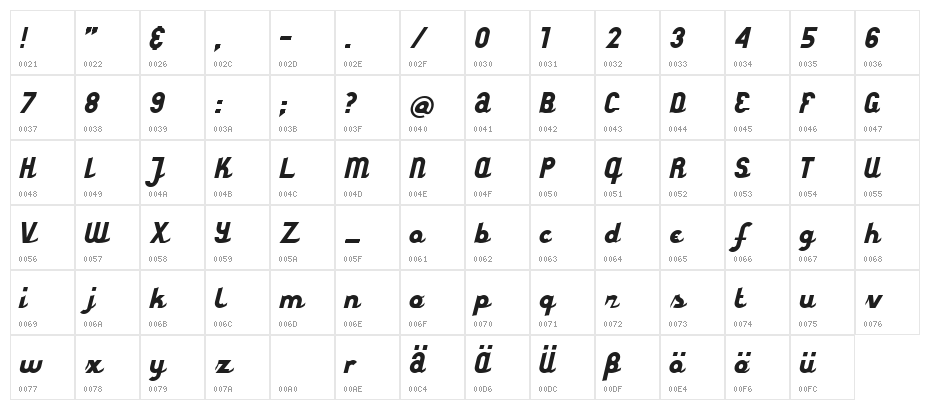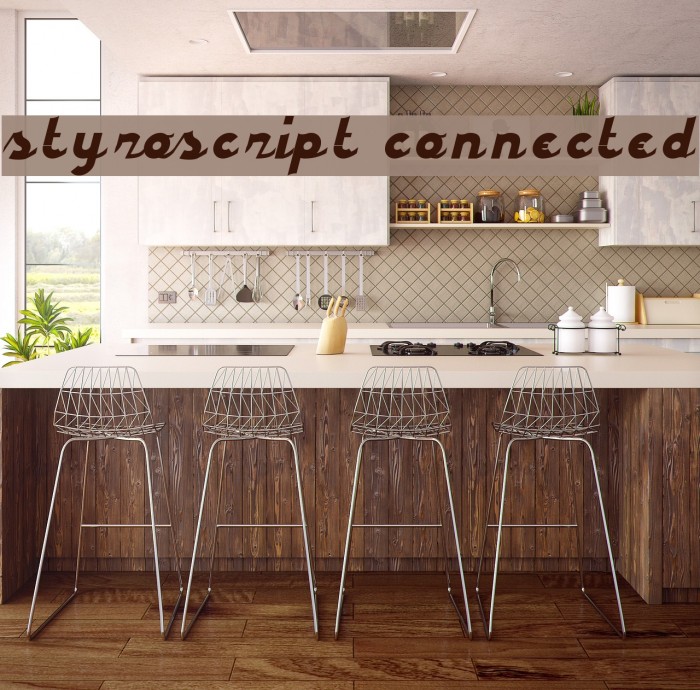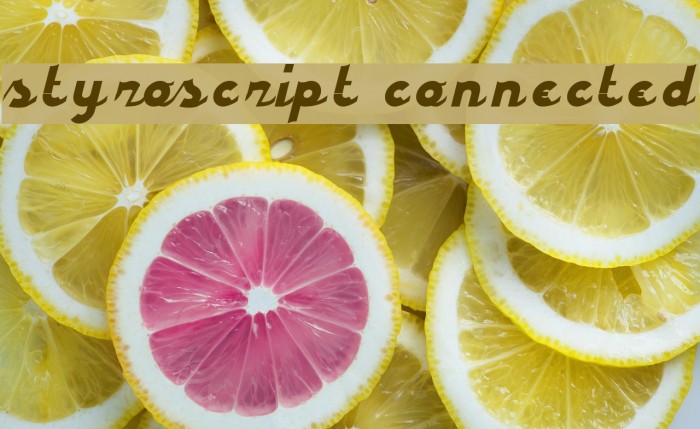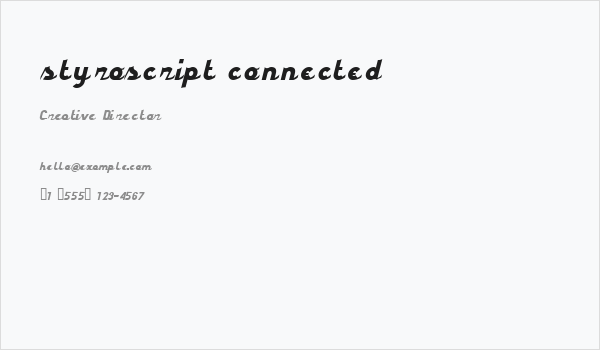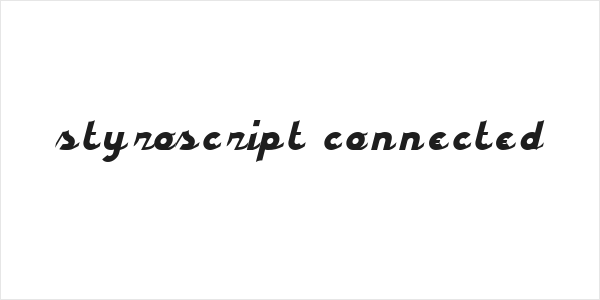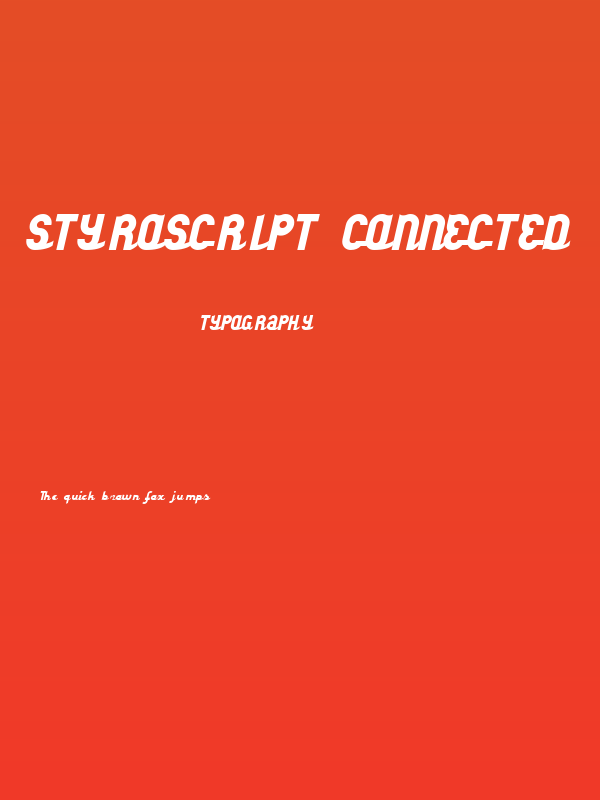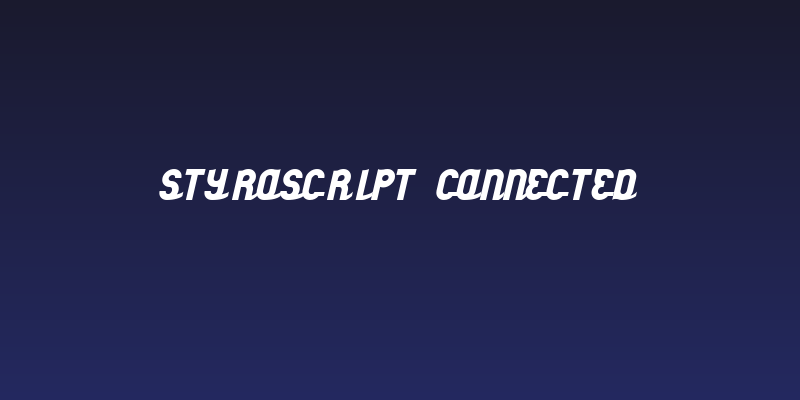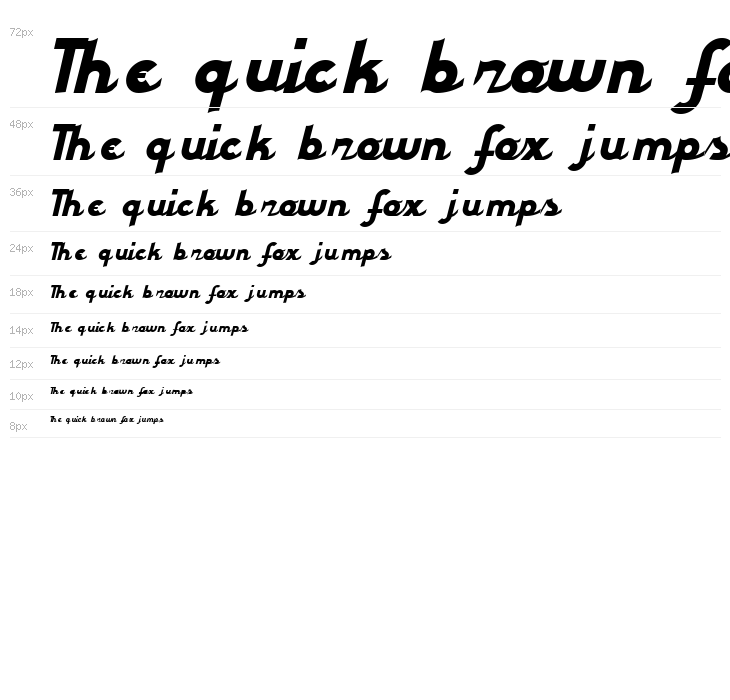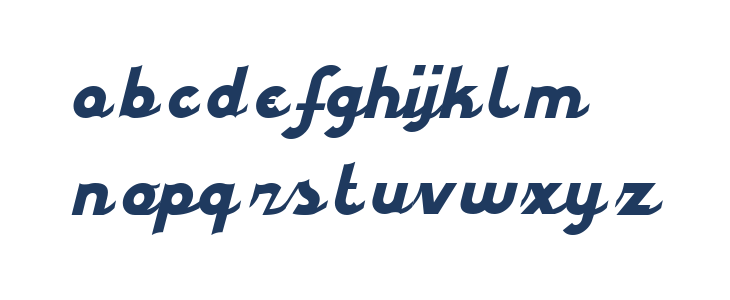
styroscript connected Font
styroscript connected Description
This font features a bold, connected script style with a modern flair. The uppercase letters are characterized by smooth curves and a slight slant, giving them a dynamic and flowing appearance. The lowercase letters maintain this fluidity, with some characters exhibiting unique loops and tails that enhance the script's elegance. The numbers are bold and consistent with the overall style, ensuring readability while maintaining the decorative nature of the font. Special characters are designed to complement the script, with a cohesive look that ties the entire set together. The font's bold weight and connected strokes make it ideal for projects that require a touch of sophistication and style.
| Proposed Projects | Ideal for branding, invitations, packaging, and any project that requires a stylish and elegant script. |